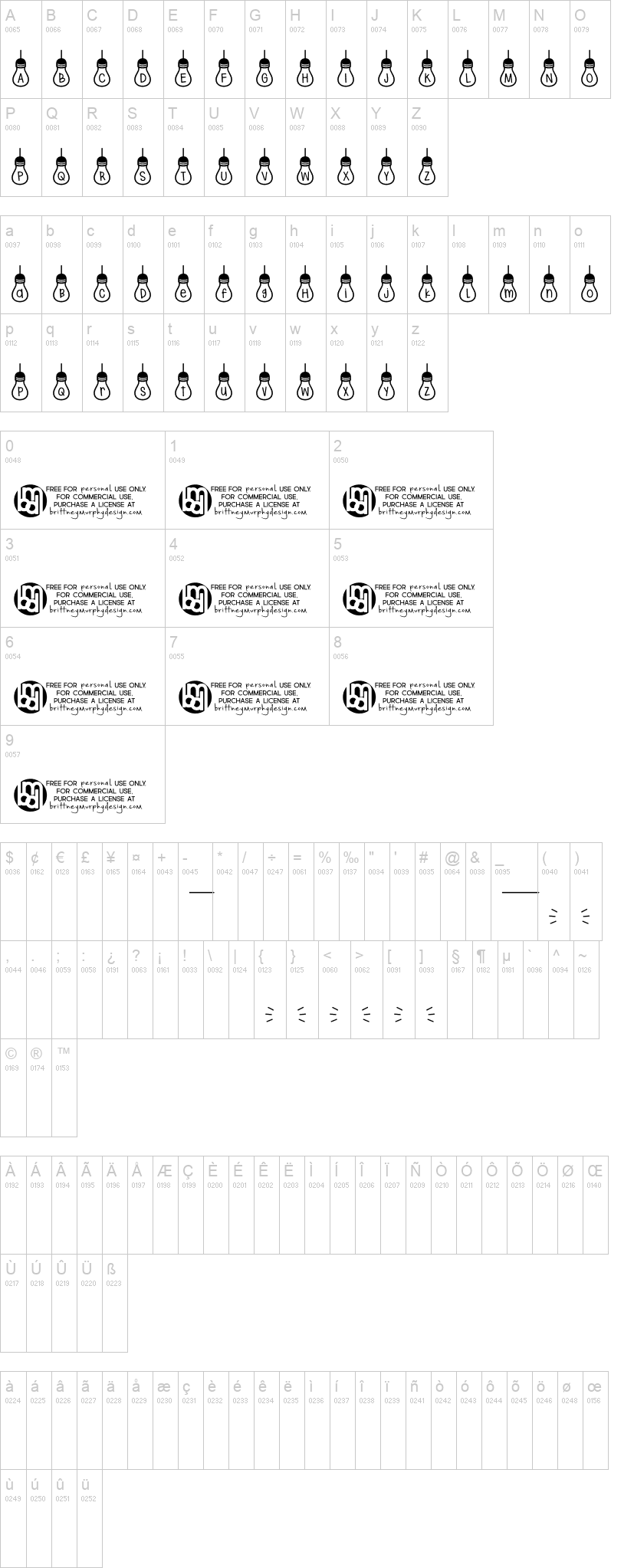
Hanging Lights
Special Characters:
Use <>, (), [] or {} for shine lines
Use dashes - in between letters for a line above
Use the underscore _ for a space with a line above